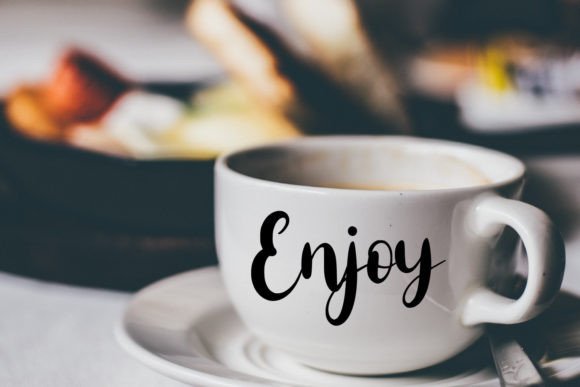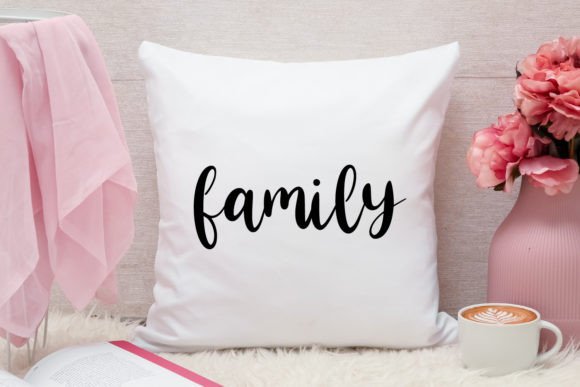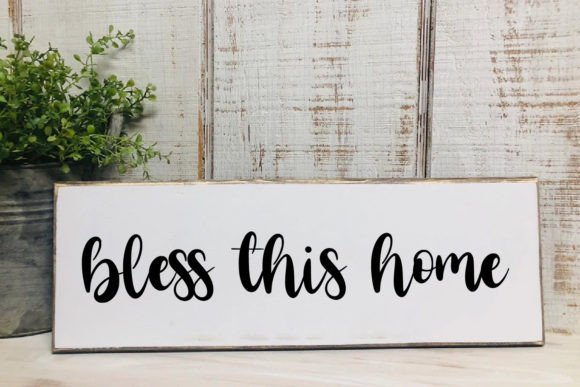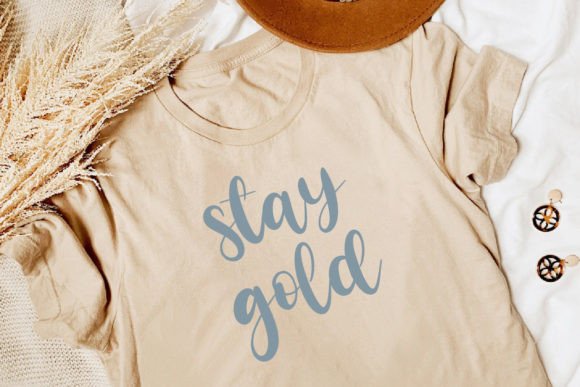
Discover Your New Favorite Font: Allovetie Font
Have you ever stumbled upon a font that instantly sparks your creativity and makes you want to create something beautiful? That’s exactly what happened to me when I discovered the Allovetie Font. I was working on a digital design project and needed a font that would add a personal touch to my artwork. As I browsed through the font options, the Allovetie Font caught my eye with its lovely and cute handwritten script.
The Allovetie Font is a versatile font that can be used for a variety of creative projects, from crafts and digital design to presentations and making greeting cards. Its playful and elegant design makes it the perfect choice for any occasion. Whether you’re a professional designer or a crafty enthusiast, the Allovetie Font is a valuable addition to your design arsenal.
Allovetie Font Key Features
• Font Family: Allovetie Font is a beautiful script font designed to add a touch of elegance to any design.
• Character Set: The font includes a wide range of characters, including uppercase and lowercase letters, numbers, and punctuation marks.
• Unique Characteristics: The font features a flowing, handwritten style with subtle connections between letters, making it perfect for creating a personal and emotional connection with your audience.
Designer Review: Allovetie Font
I recently had the chance to work with the Allovetie font, and I must say it’s a lovely addition to any design project. Here are my thoughts on what works well and what could be improved.
• Unique character: Allovetie has a distinctive feel to it, making it stand out from more generic fonts.
• Legibility: The font is easy to read, even at smaller font sizes, making it suitable for body text.
• Curvy charm: The flowing curves of the font give it a touch of elegance and sophistication.
• Limited versatility: Allovetie may not be the best choice for formal or technical documents, as its cursive nature can be distracting in those contexts.
• No bold/italic variations: The font only comes in regular weight, which may limit its use in certain situations.
Overall, I think Allovetie is a great choice for designs that need a touch of whimsy and elegance. While it may not be suitable for every project, it’s a lovely addition to any designer’s toolkit.
Tips for Getting the Most Out of Allovetie Font
Alternatives to Allovetie Font
Great Vibes Font is a beautiful script font that is perfect for creating a sense of elegance and sophistication. It is ideal for use in wedding invitations, branding, and other high-end designs. Great Vibes Font is similar to Allovetie Font in its flowing and cursive nature, but it has a more refined and polished look.
Carolyna Pro Font is a modern script font that is great for creating a sense of luxury and sophistication. It is ideal for use in branding, packaging, and other high-end designs. Carolyna Pro Font is similar to Allovetie Font in its elegant and refined look, but it has a more modern and sleek feel.